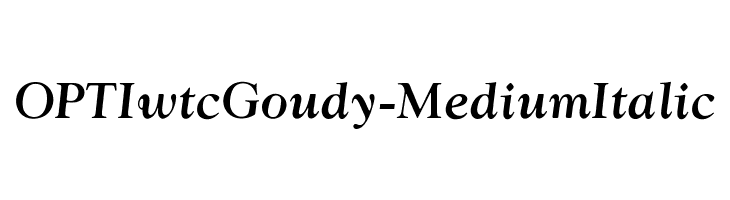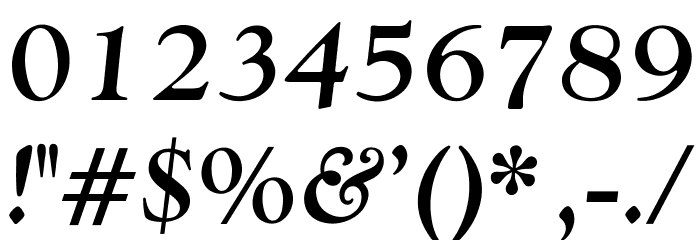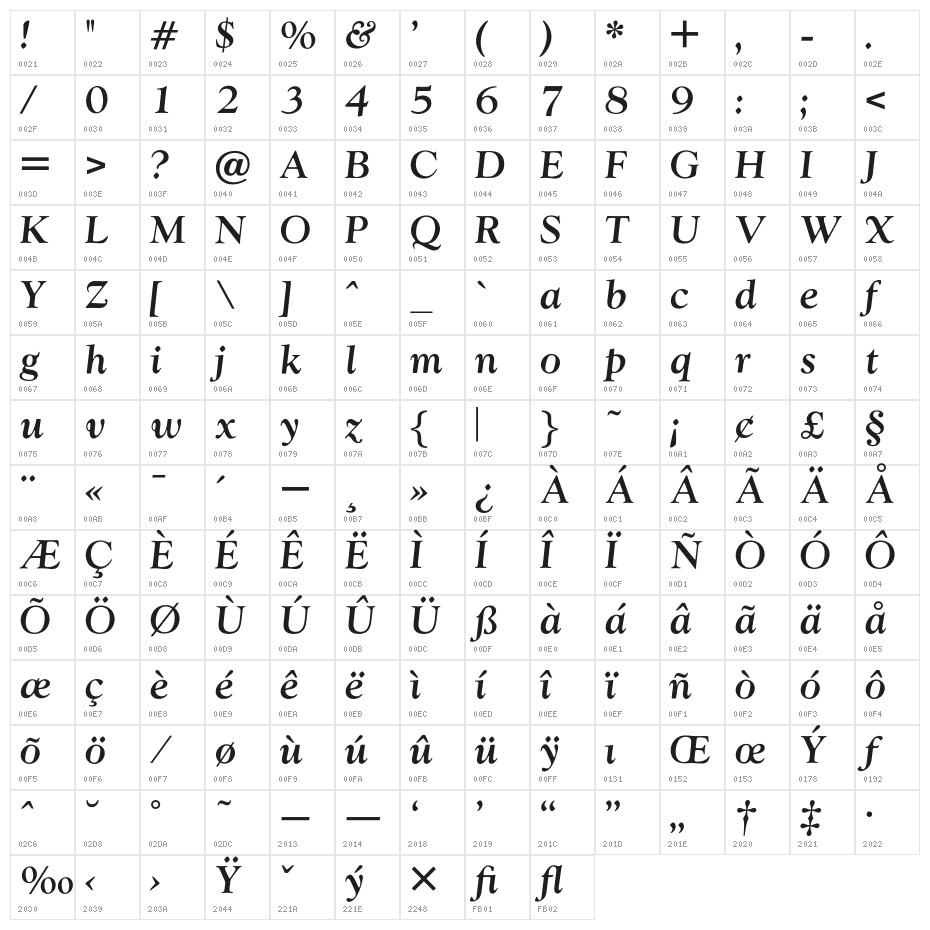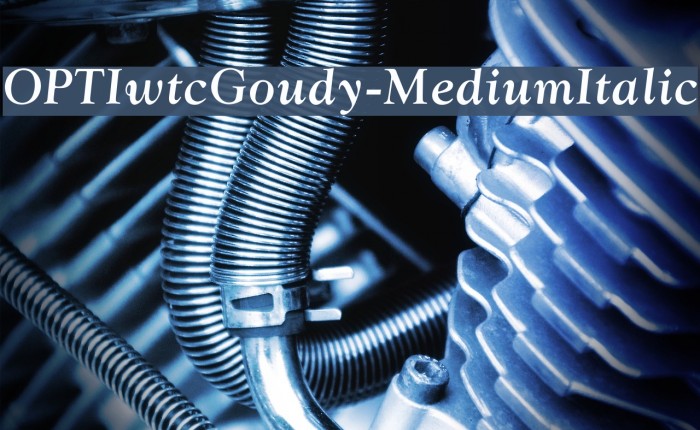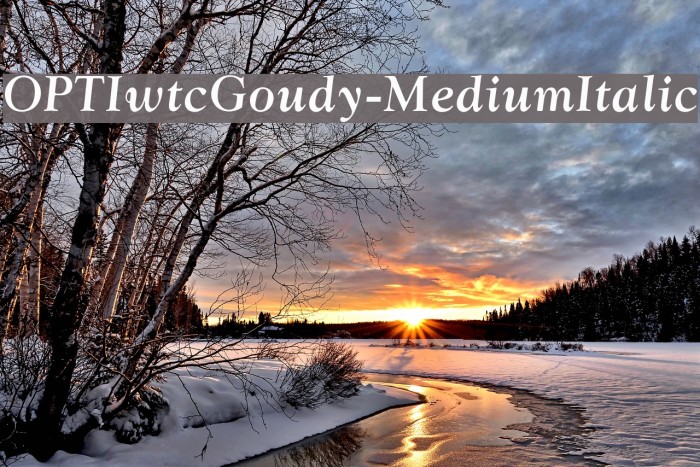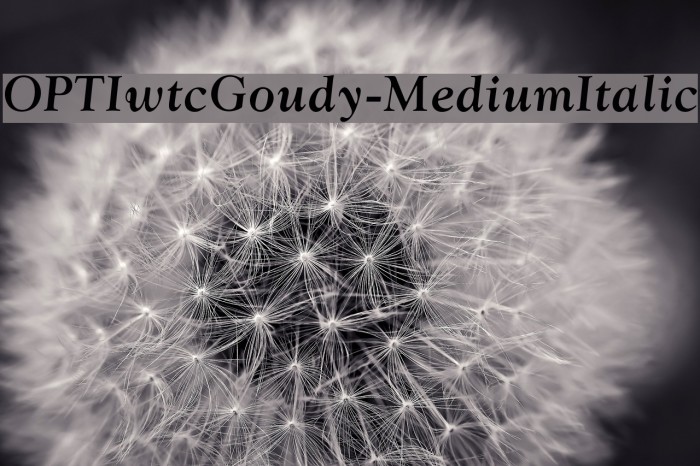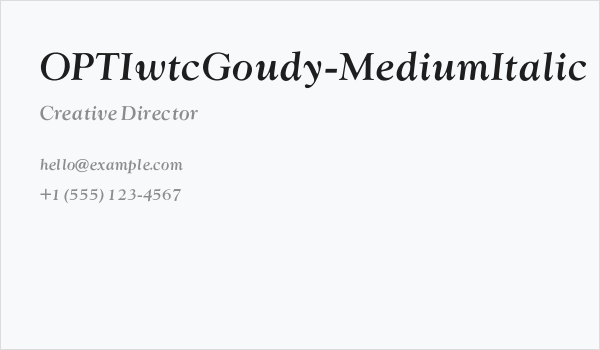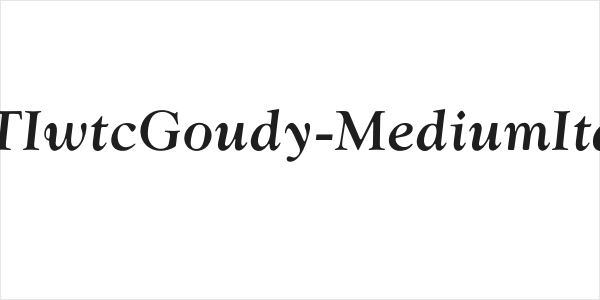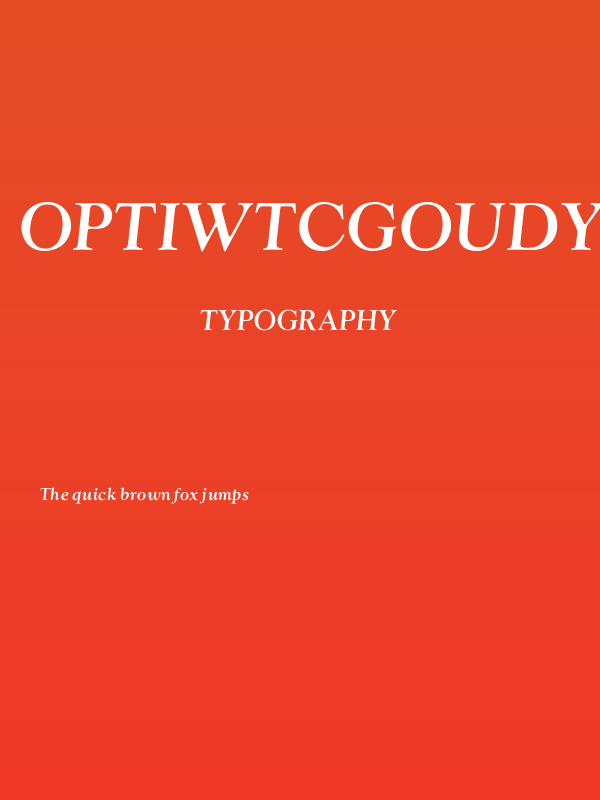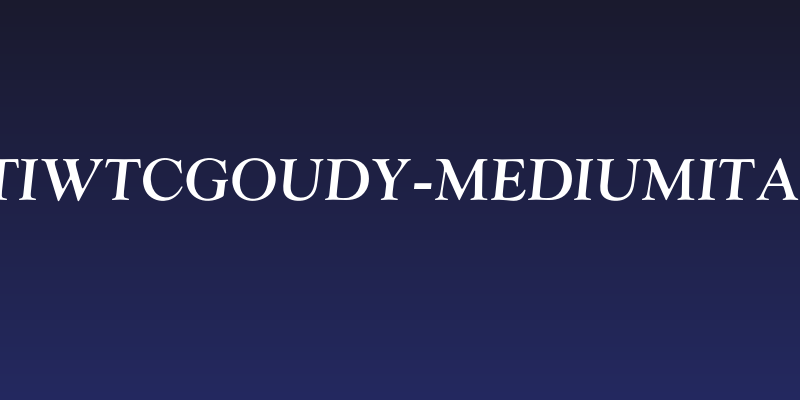
OPTIwtcGoudy-MediumItalic Font
OPTIwtcGoudy-MediumItalic Description
This font exhibits a classic serif style with a medium weight and an italic slant, giving it an elegant and sophisticated appearance. The characters are well-defined with moderate contrast between thick and thin strokes, enhancing readability while maintaining a stylish look. The uppercase letters are slightly taller than the lowercase, which have a gentle curve that adds a touch of softness. The numerals are proportional and align well with the overall design, ensuring consistency across different uses. Special characters are crafted with attention to detail, matching the font's refined aesthetic.
| Proposed Projects | Ideal for book covers, formal invitations, branding materials, and editorial design. |